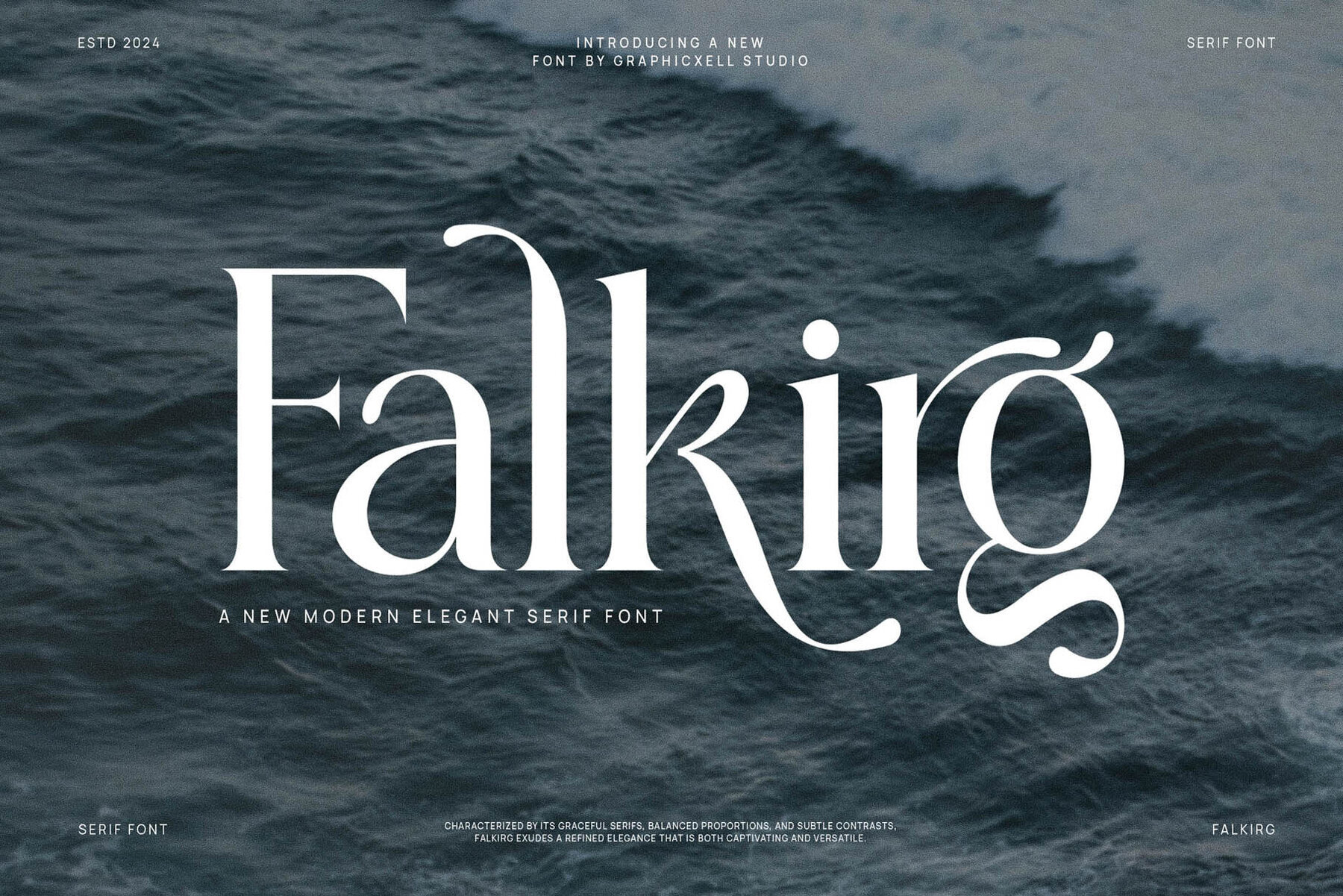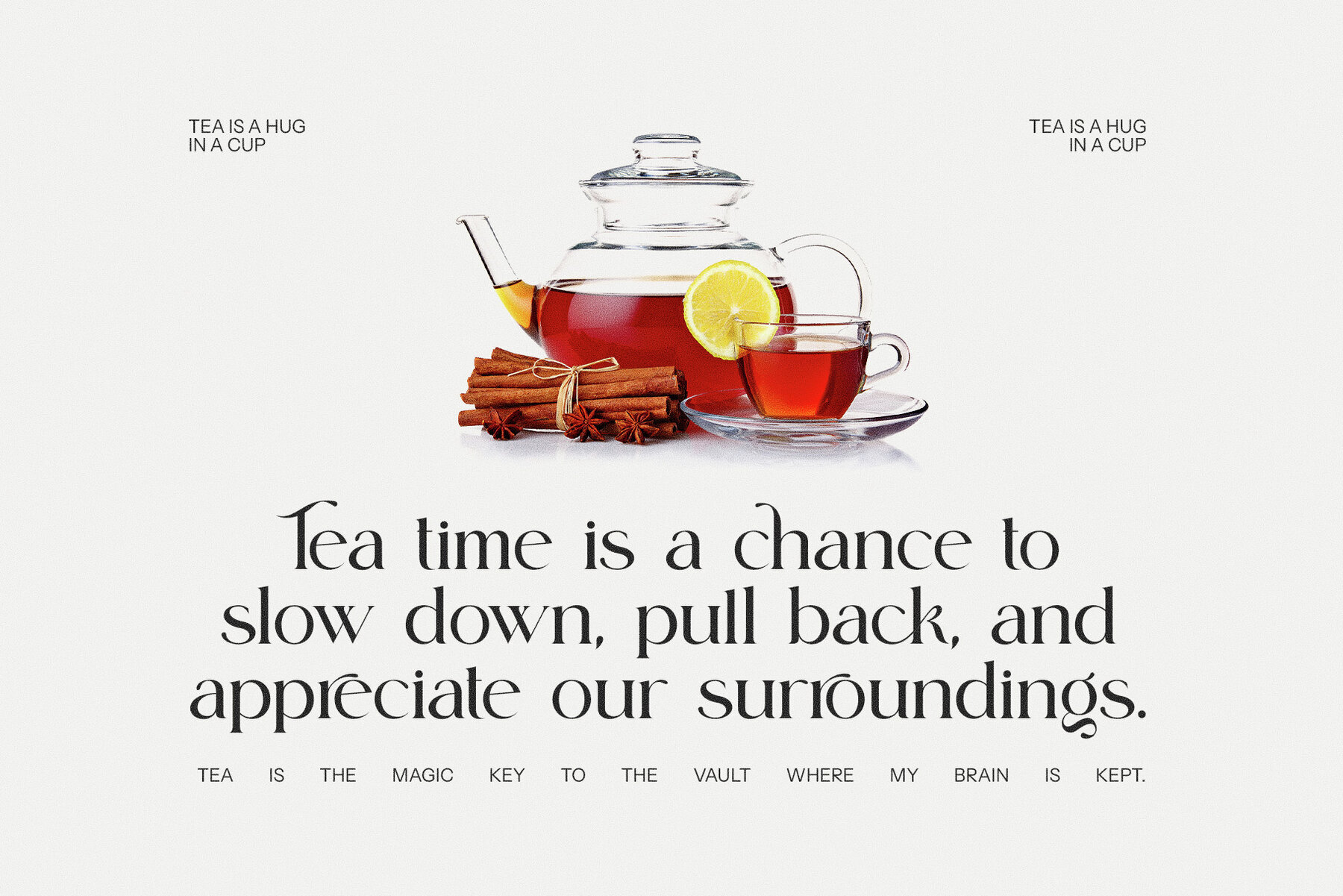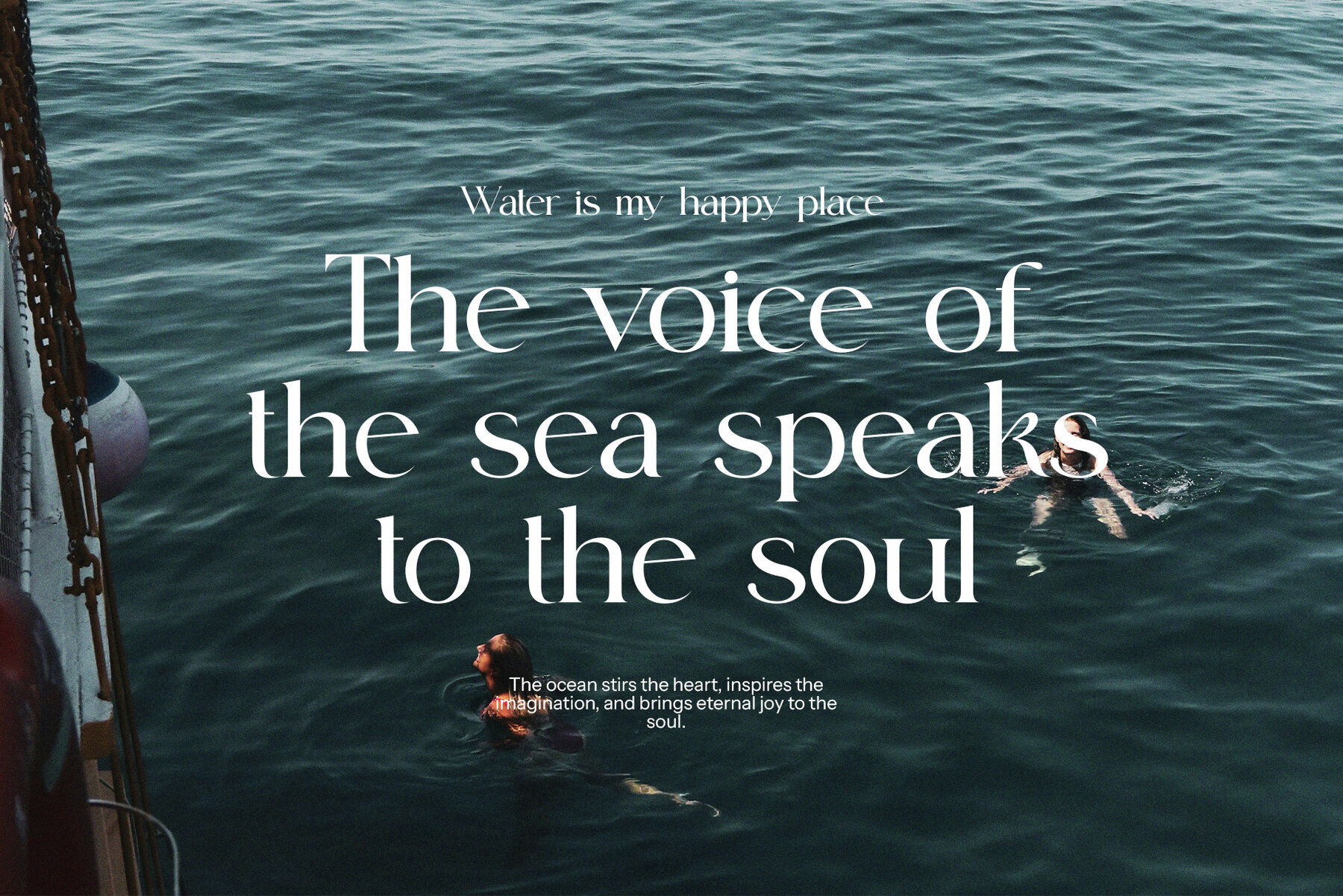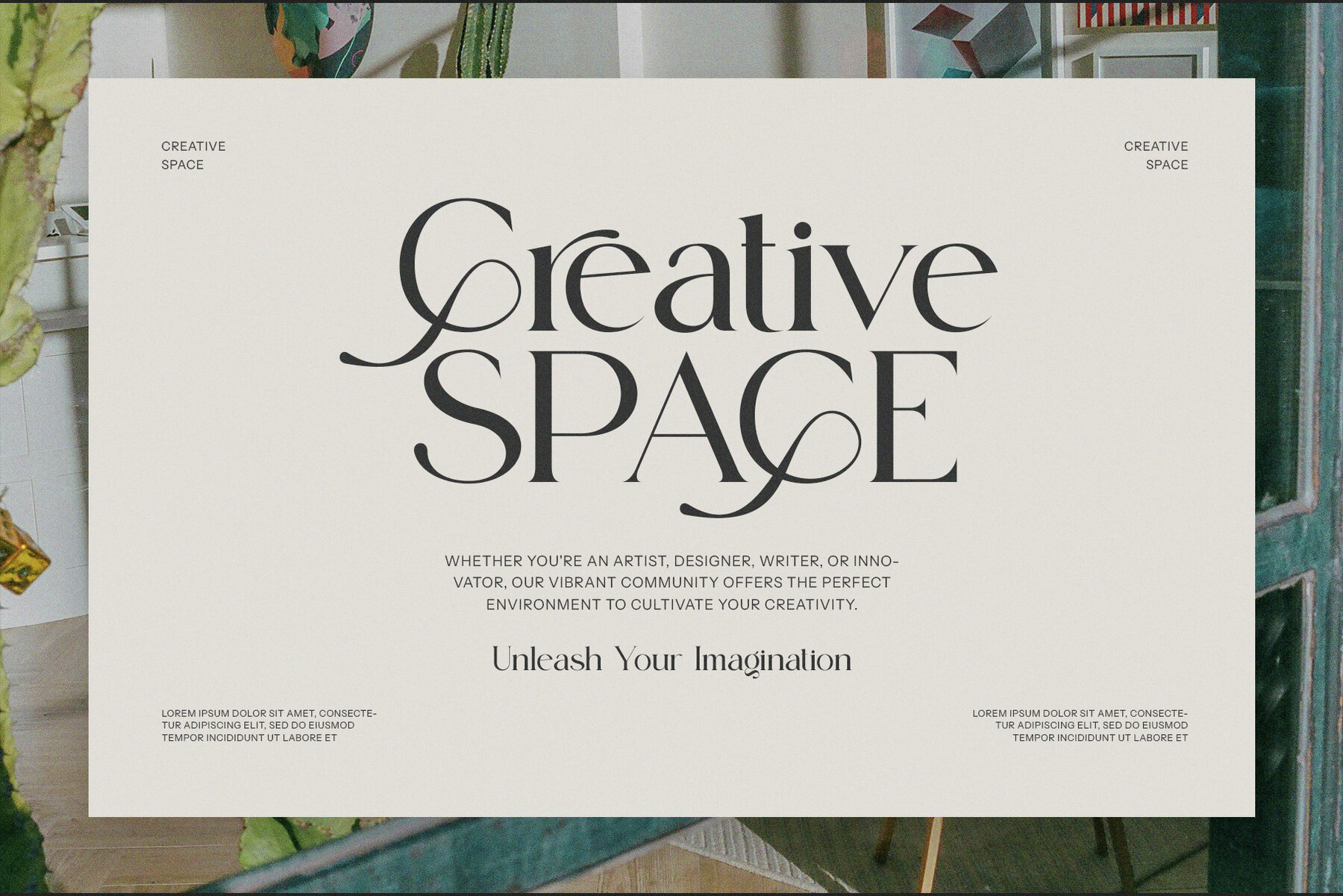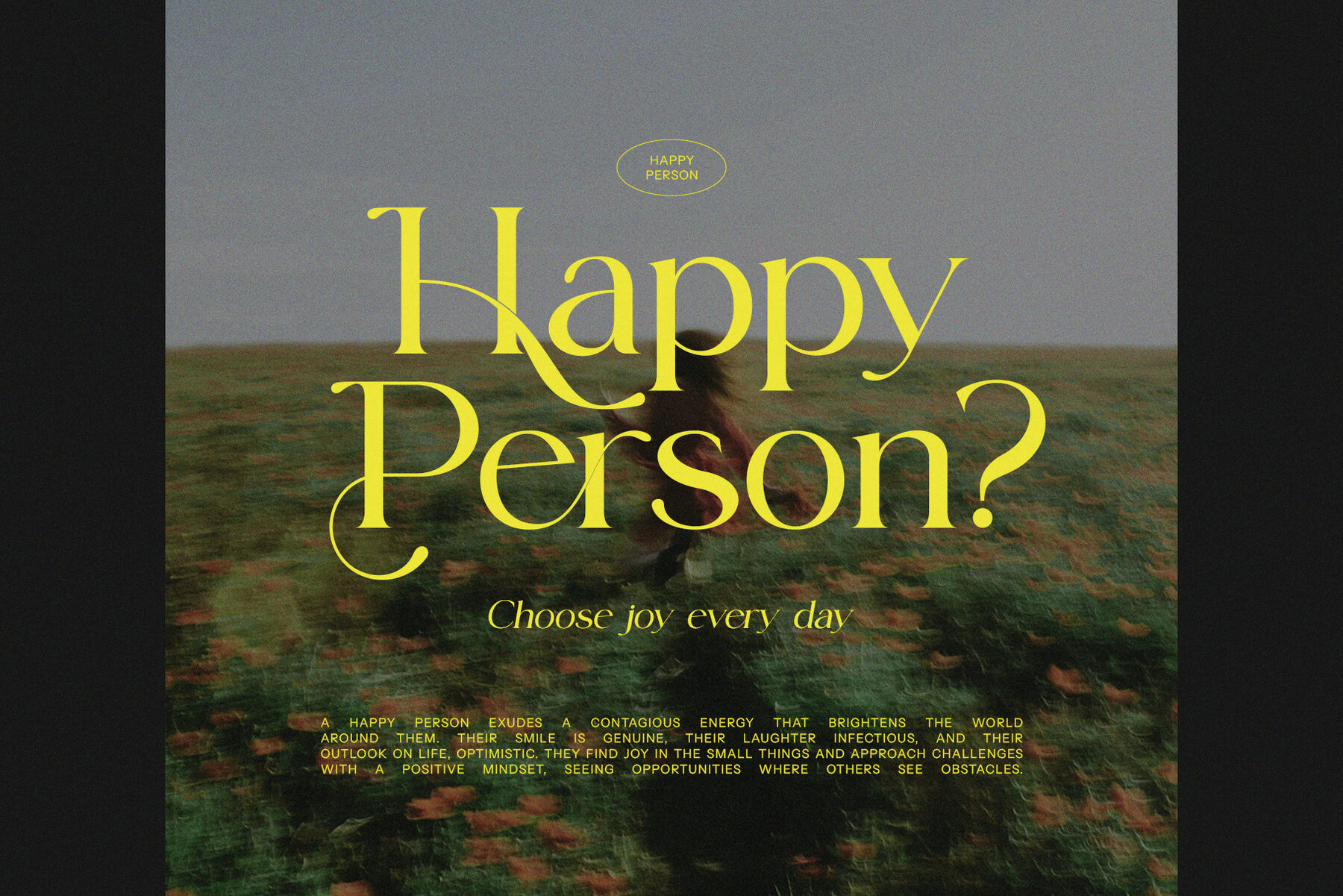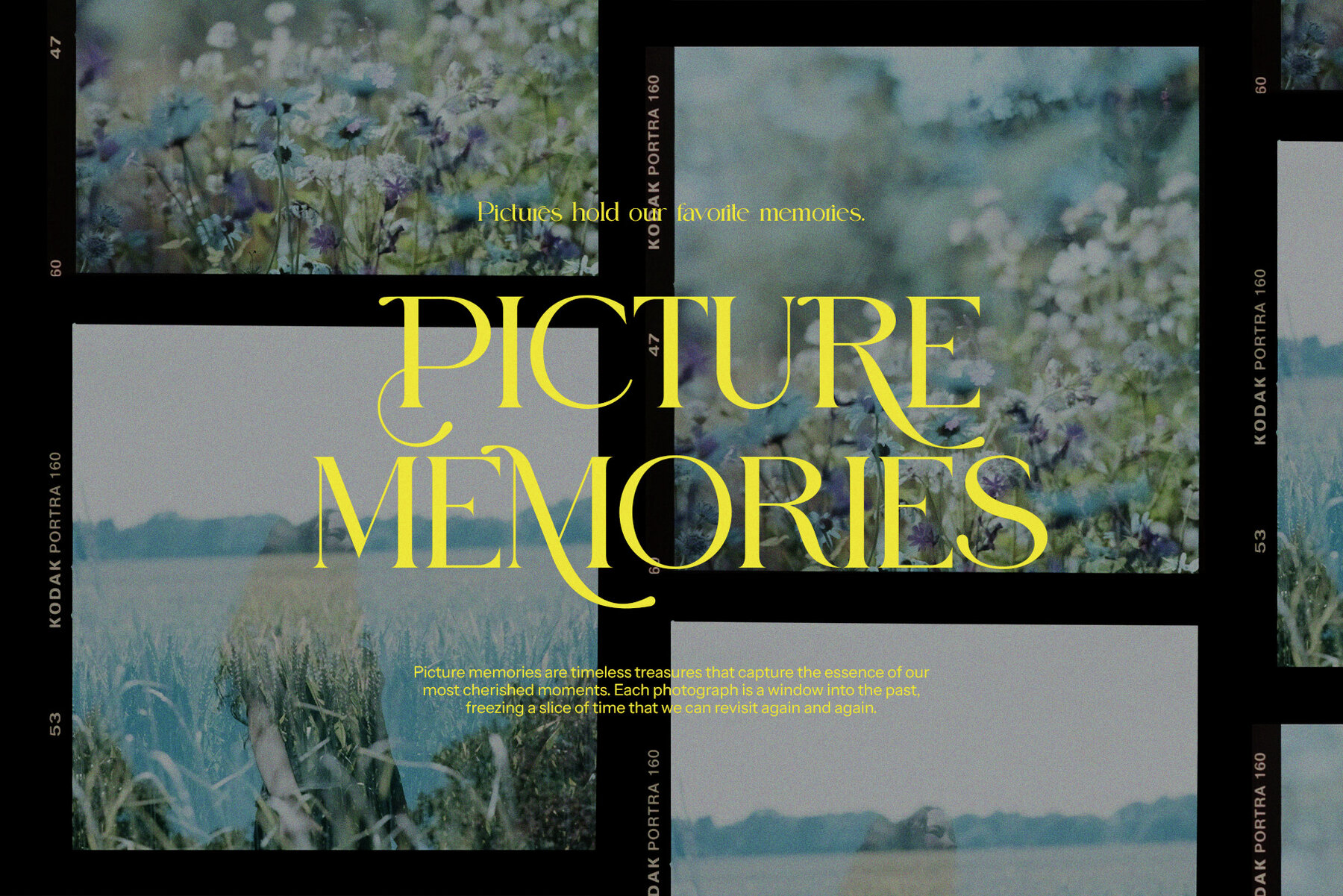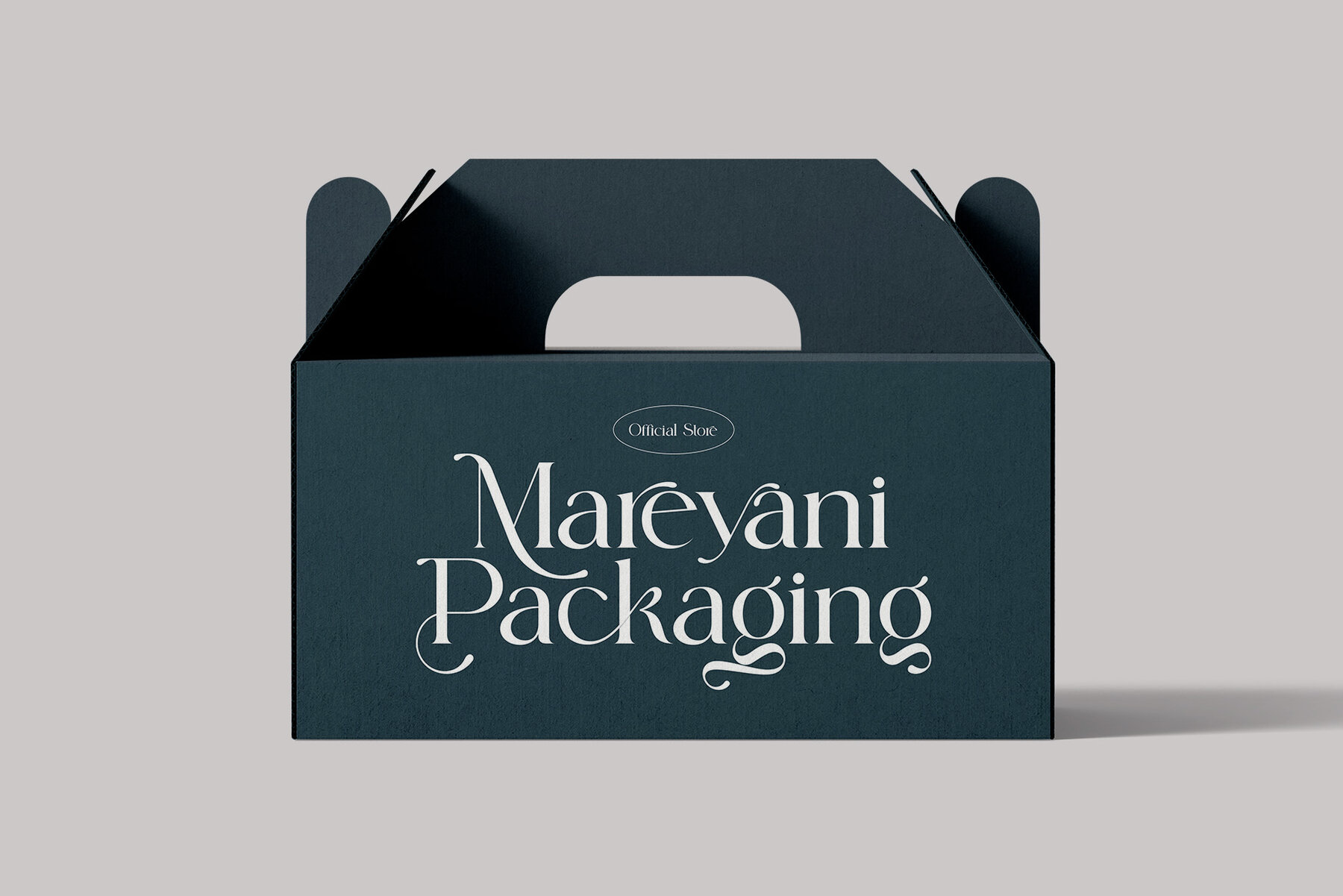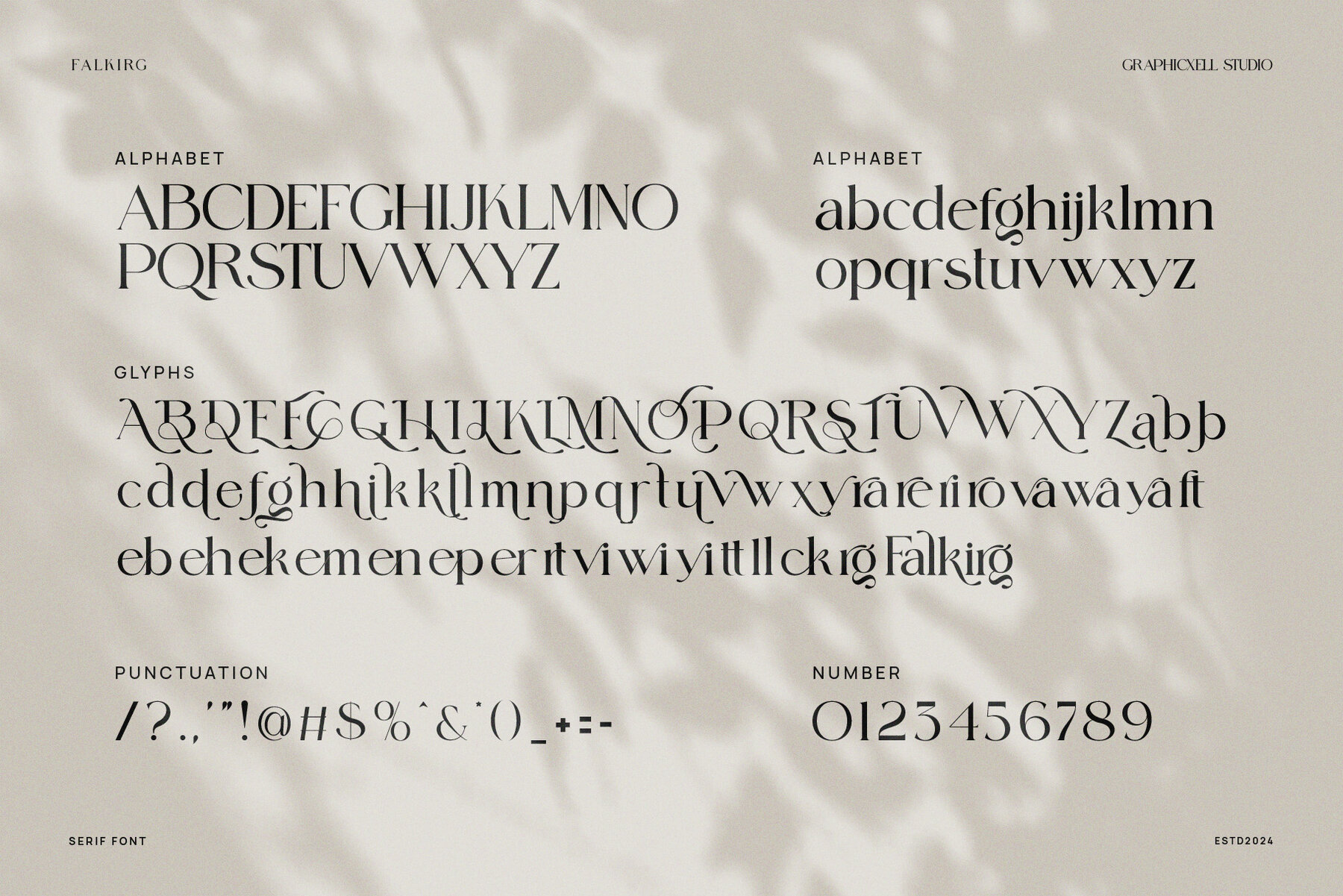
Falkirg Font
Falkirg
Falkirg Elegant Serif Font is a sophisticated typeface that flawlessly combines contemporary refinement with timeless elegance. Featuring graceful curves, sharp serifs, and distinctive ligatures, Falkirg enhances any design project with a luxurious and polished aesthetic. Its versatility ensures it adapts to a variety of creative applications, making it ideal for high-end branding, boutique logos, editorial layouts, and upscale product packaging. The elegant alternates and intricate ligatures provide designers with the tools to create effortlessly sophisticated typography.
Designed for prominence, Falkirg's high-contrast strokes and well-balanced proportions exude both confidence and style. The bold yet graceful letterforms make it suitable for striking headlines, refined website headers, fashion magazines, and premium marketing materials. Catering to industries such as fashion, beauty, hospitality, and luxury goods, Falkirg captures attention while maintaining an air of elegance.
This font transcends being just a typeface; it's a statement of elegance and creativity. Whether crafting a modern brand identity, designing exquisite invitations, or curating an editorial masterpiece, Falkirg delivers a stunning visual presence that leaves a lasting impression. Falkirg Elegant Serif is the epitome of grace, sophistication, and contemporary luxury in typography.